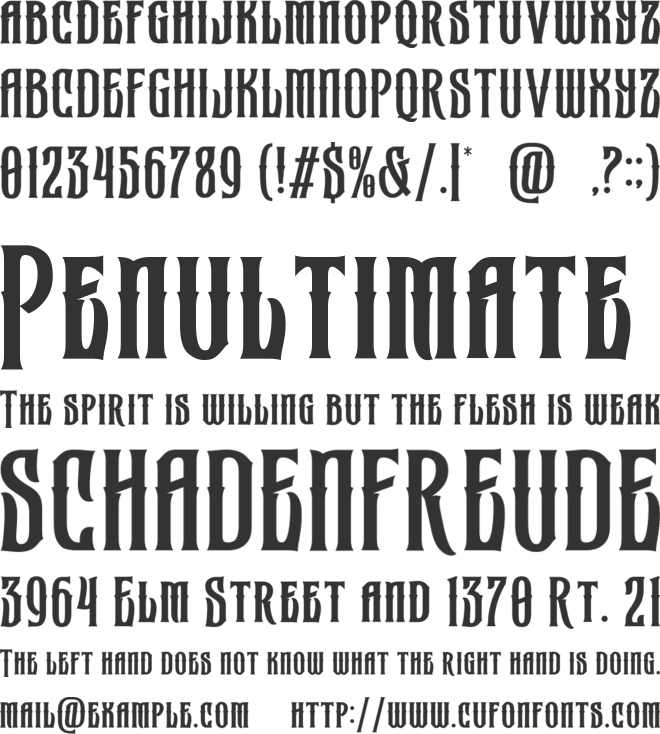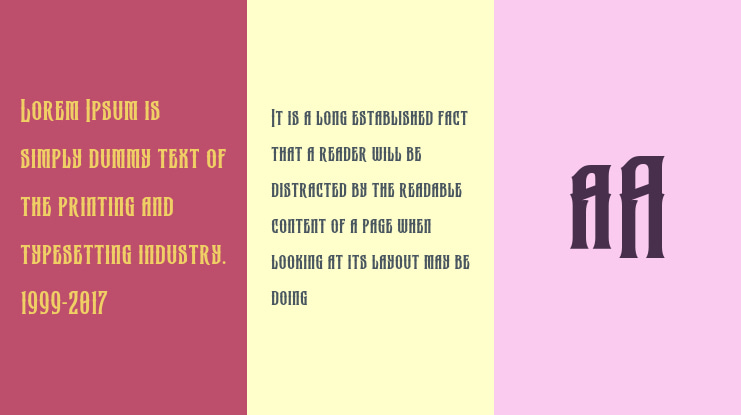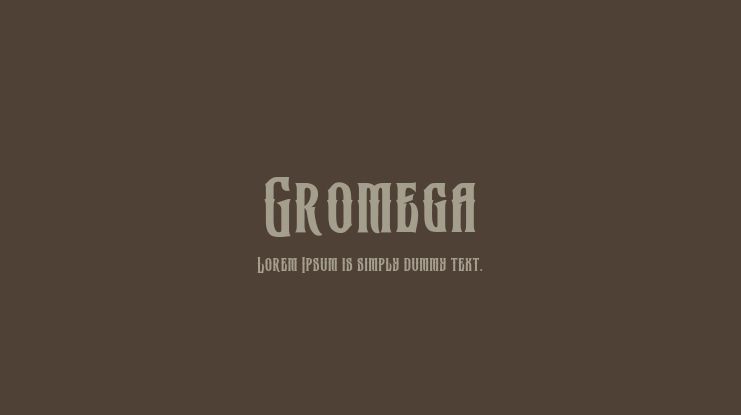
Gromega Font
Gromega Typeface - A Fierce Fusion of Black Metal Aesthetics
Gromega Typeface is a bold and electrifying font inspired by the raw intensity of black metal music. Infused with intricate thorn-like details, this typeface embodies the fierce and untamed spirit of the genre, making it the perfect choice for creating dark, dramatic, and visually striking designs.